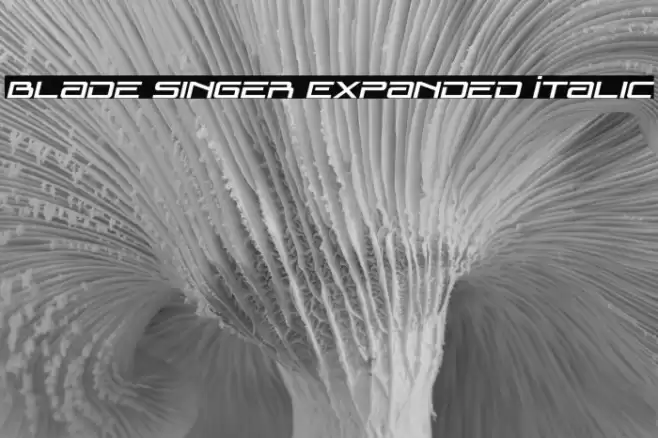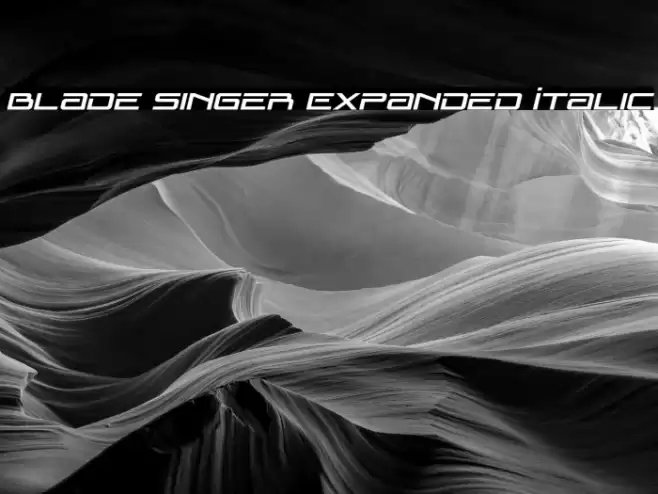
Blade Singer Expanded Italic Font
Blade Singer Expanded Italic Description
This font features a futuristic and dynamic style, characterized by its expanded and italicized letterforms. The angular and sleek design gives it a modern, tech-inspired appearance. The uppercase and lowercase letters maintain a consistent geometric structure, with sharp edges and a forward-leaning posture, enhancing its sense of motion and speed. The numerals and special characters are designed to match the overall aesthetic, ensuring uniformity across all glyphs. This font's distinct style makes it suitable for projects that require a bold and innovative look.
A futuristic, expanded italic font with a sleek, angular design from Uncategorized fonts.
- Proposed Projects: Ideal for tech branding, sci-fi movie posters, video game titles, and modern advertising.